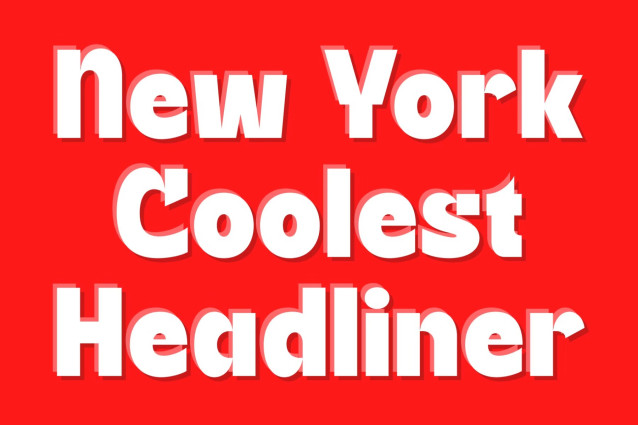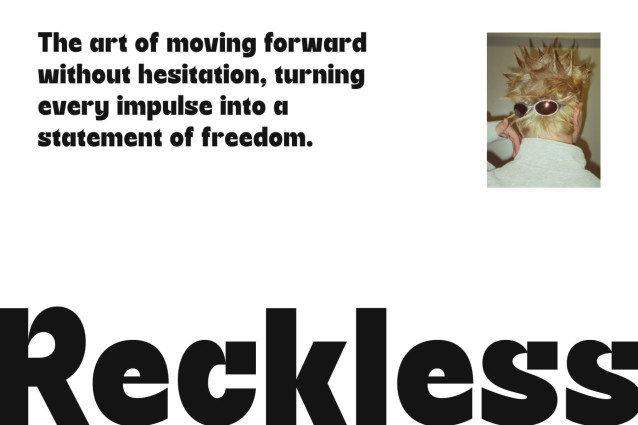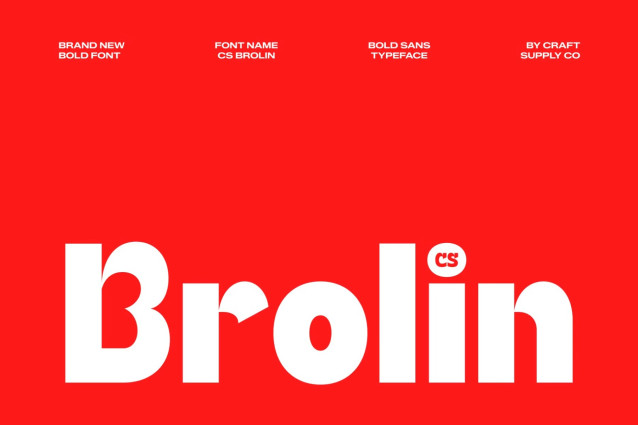
CS Brolin – Bold Sans Serif Font
CS Brolin – Bold Sans Serif Font: Where Clean Strength Meets Funky Expression
Strong Clean Shapes with Maximum Impact
This is a bold sans serif display font designed to make a powerful visual statement through its strong, clean shapes and confident construction. Its bold letterforms deliver exceptional visibility and clarity, allowing headlines and display text to stand out with authority and precision. The modern structure provides a solid foundation that feels contemporary, reliable, and highly versatile.
Funky Edge with Distinctive Personality
This font introduces a funky edge that adds charm, energy, and individuality. Unique stylistic details bring a playful and unconventional character to the font, creating a lively visual presence that feels expressive and memorable. This balance between bold structure and creative flair makes it ideal for designs that seek to stand apart from the ordinary.